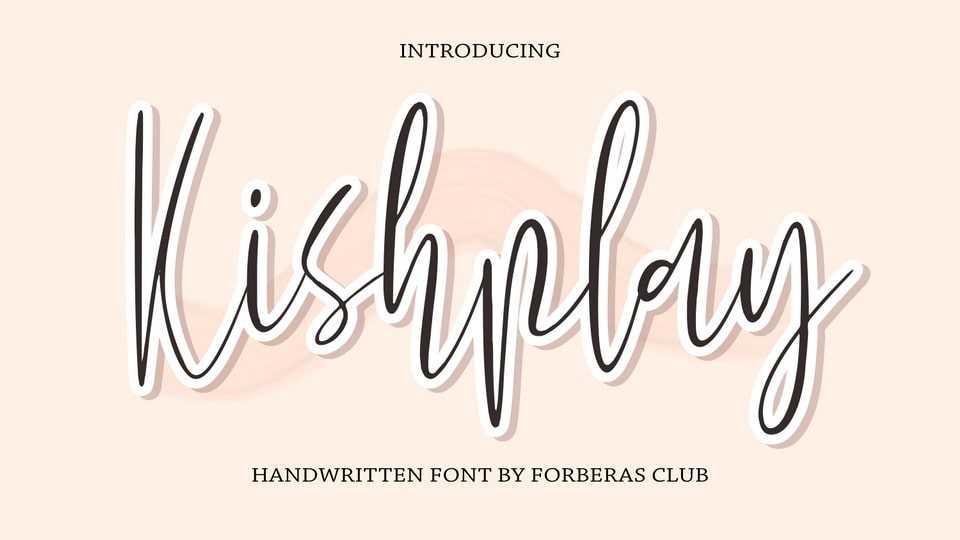
Download Kishplay font, a script typeface especially designed for elegant, feminine projects. Kishplay font is perfect for creating modern and chic designs such as logos, packaging, editorials and more.